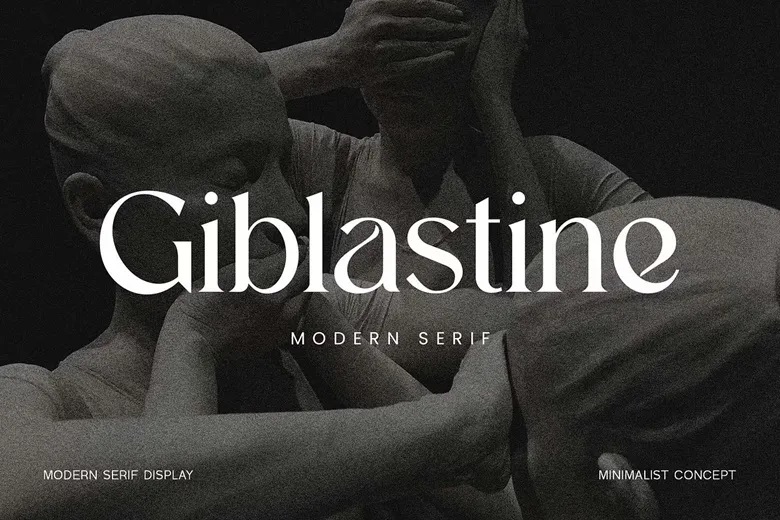
Giblastine Font
Giblastine is a new modern display serif font. This font will work for almost any project from logos, weddings and quotes to magazine or book covers, website headers, branding and much more. It is also fair to say that fashion branding or editorial design also encompasses both the male and female attributes.
Giblastine Serif Font